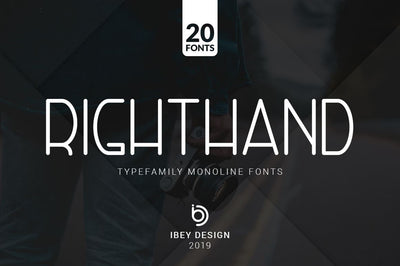
RightHand - 20 Monoline Fonts
Introducing: RightHand! A monoline font with single line style and weight.
•RightHand with 20 amazing fonts
•RightHand with Line and Dash style